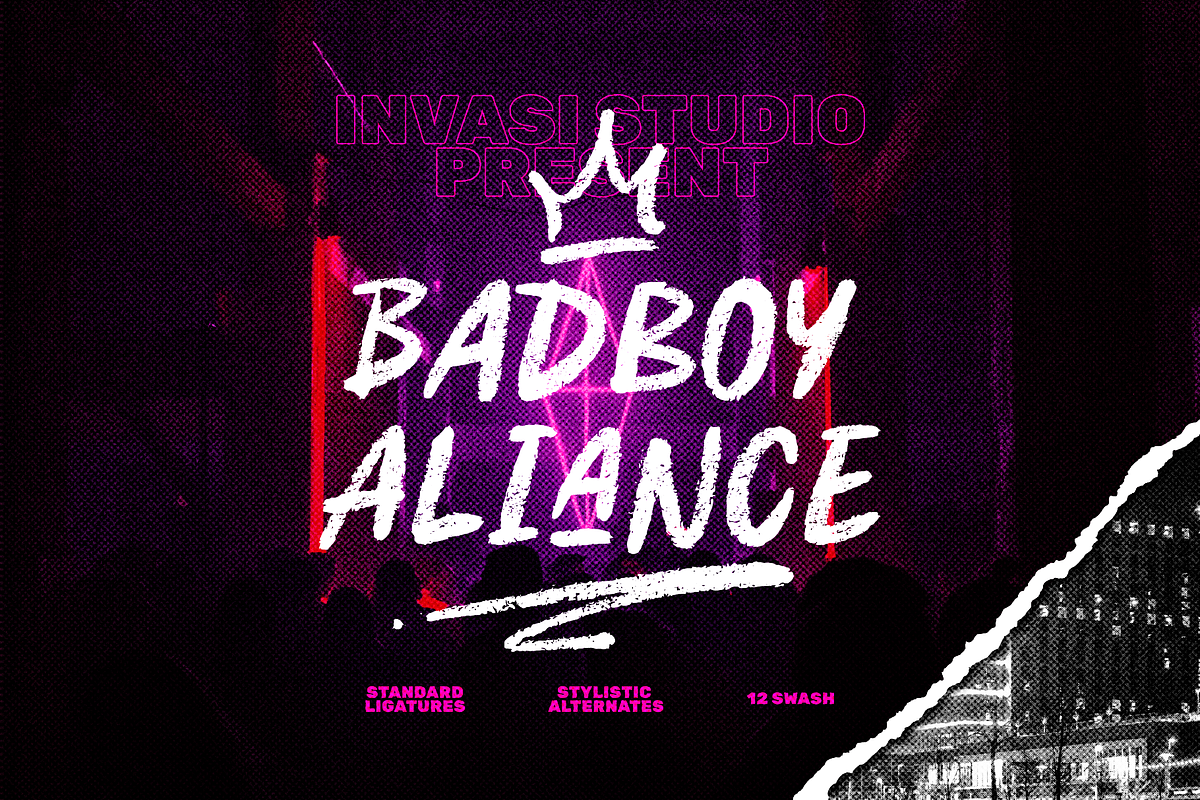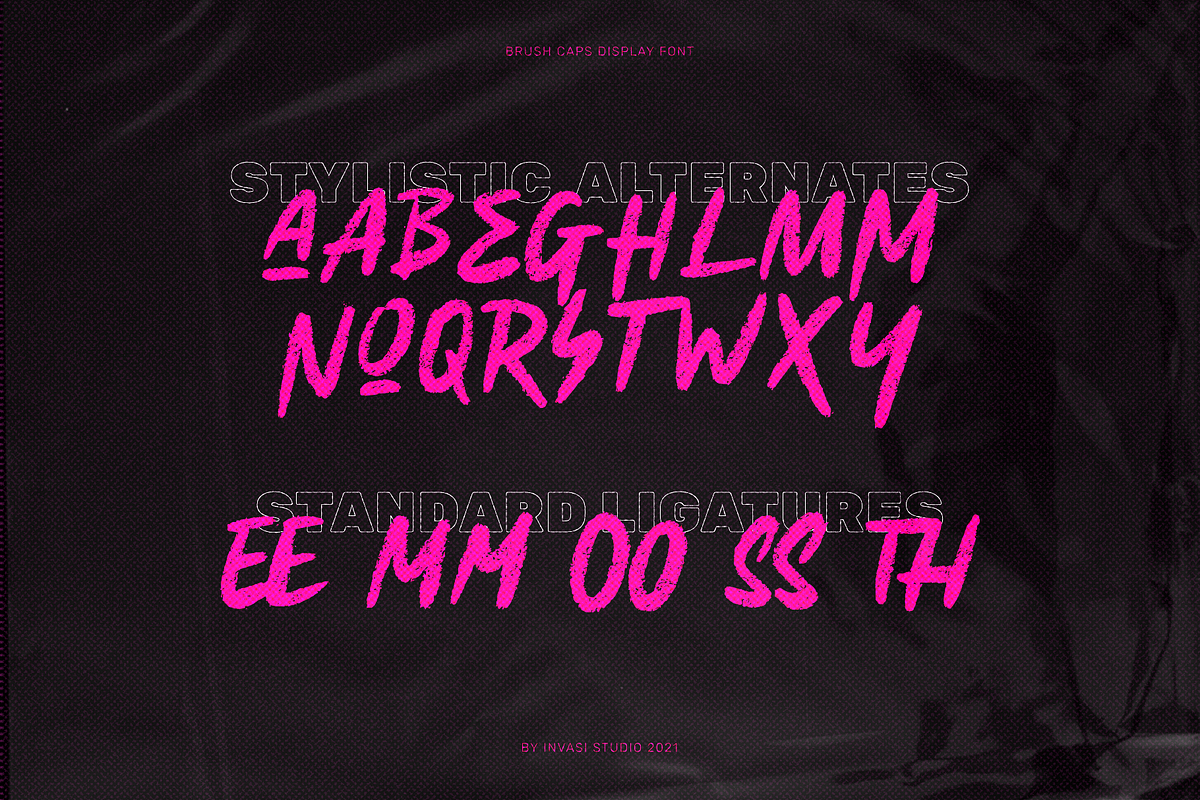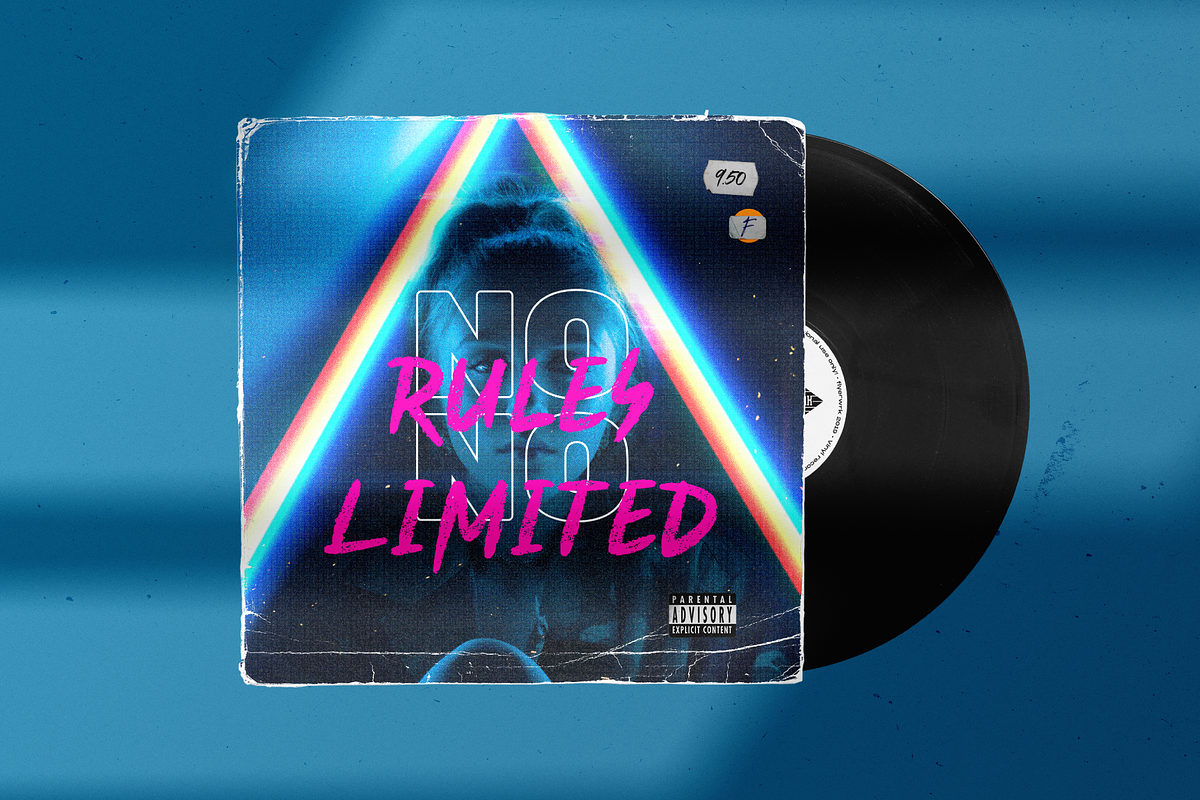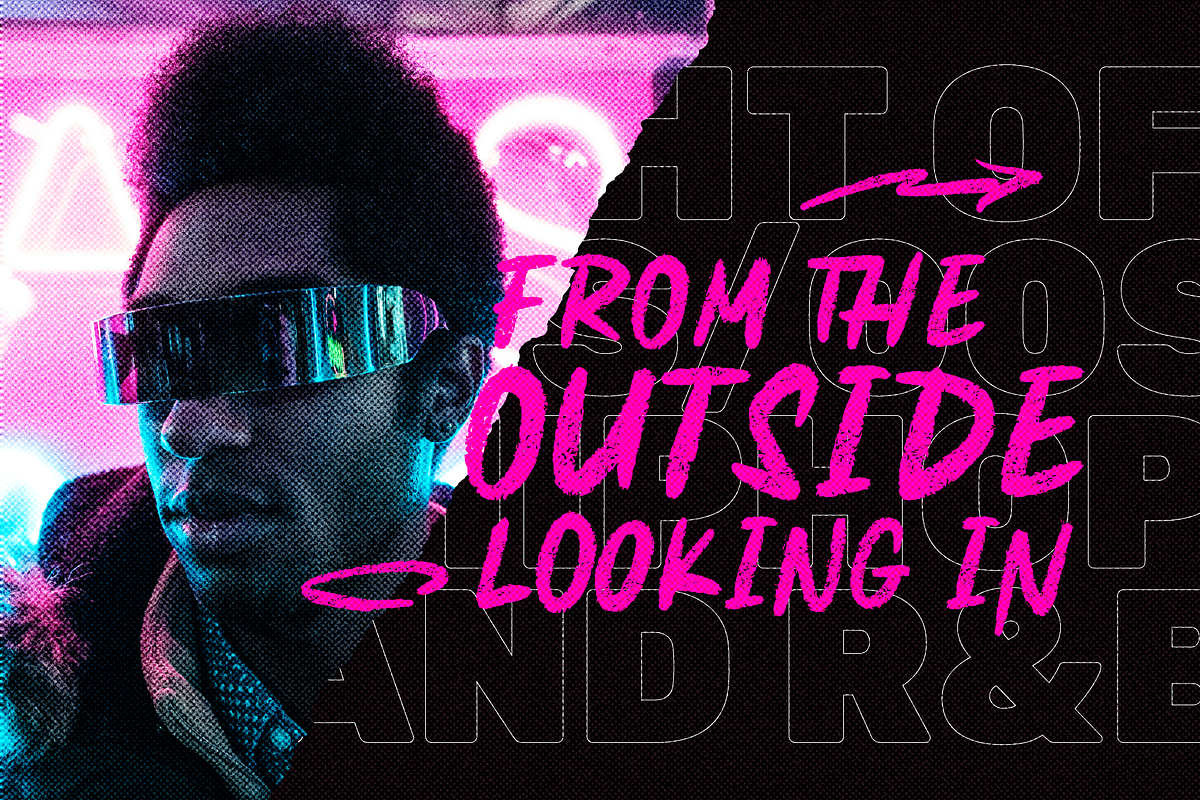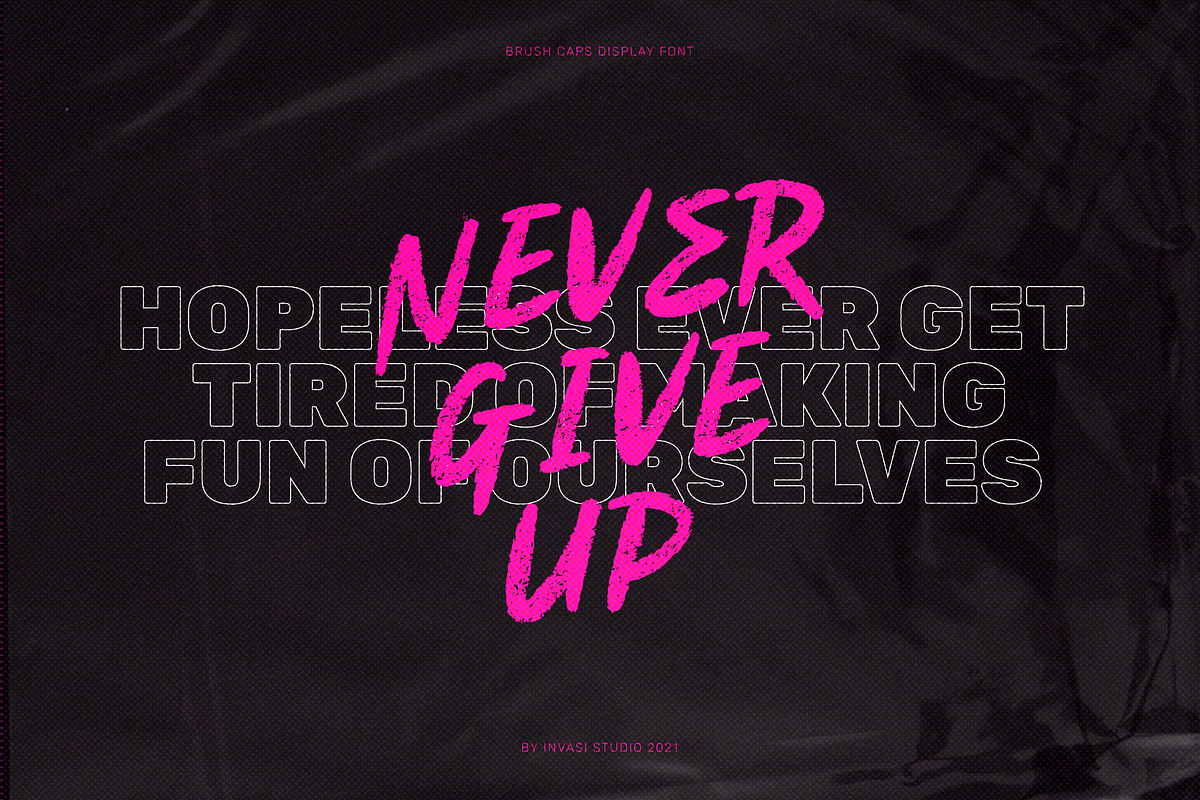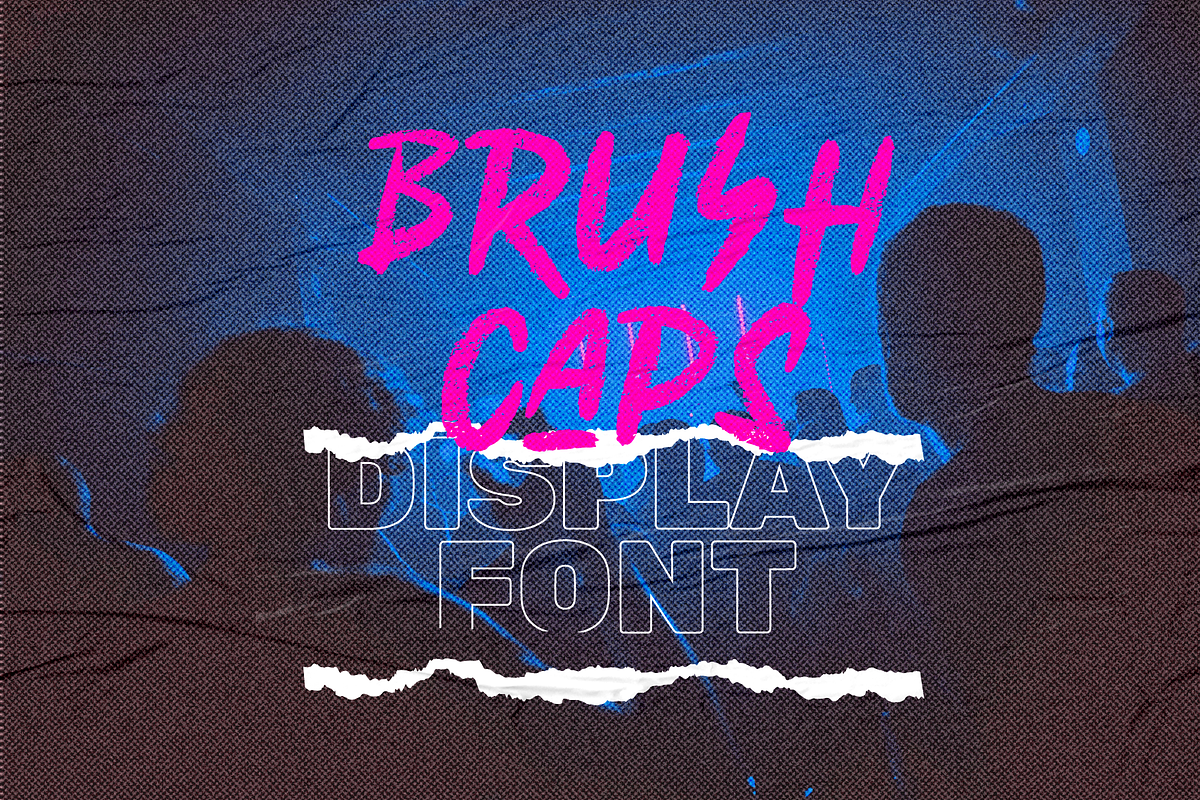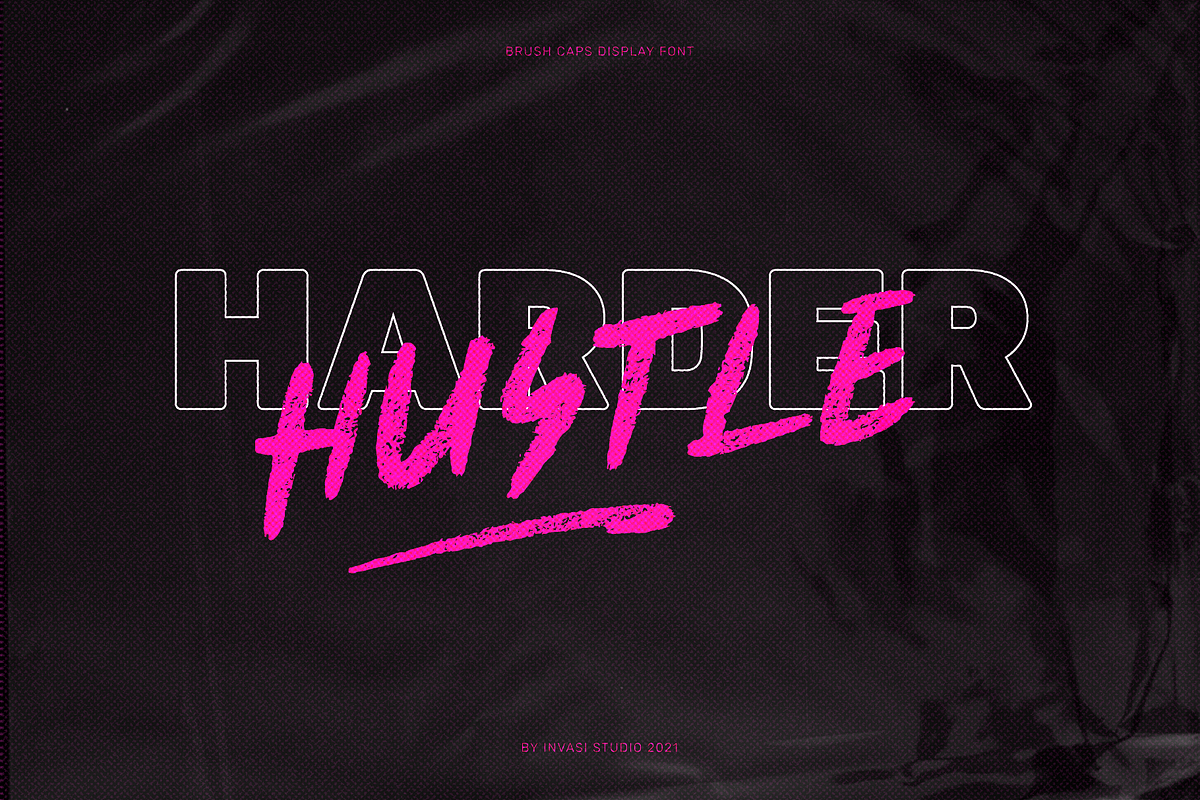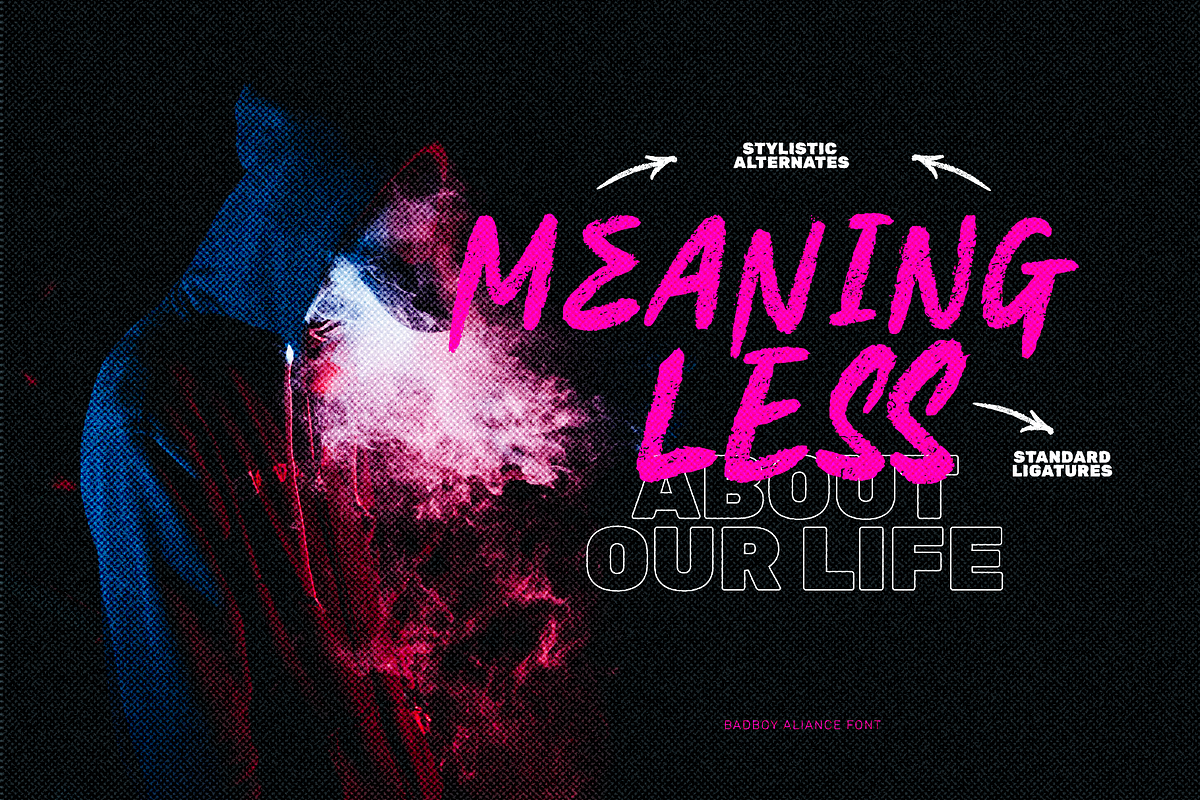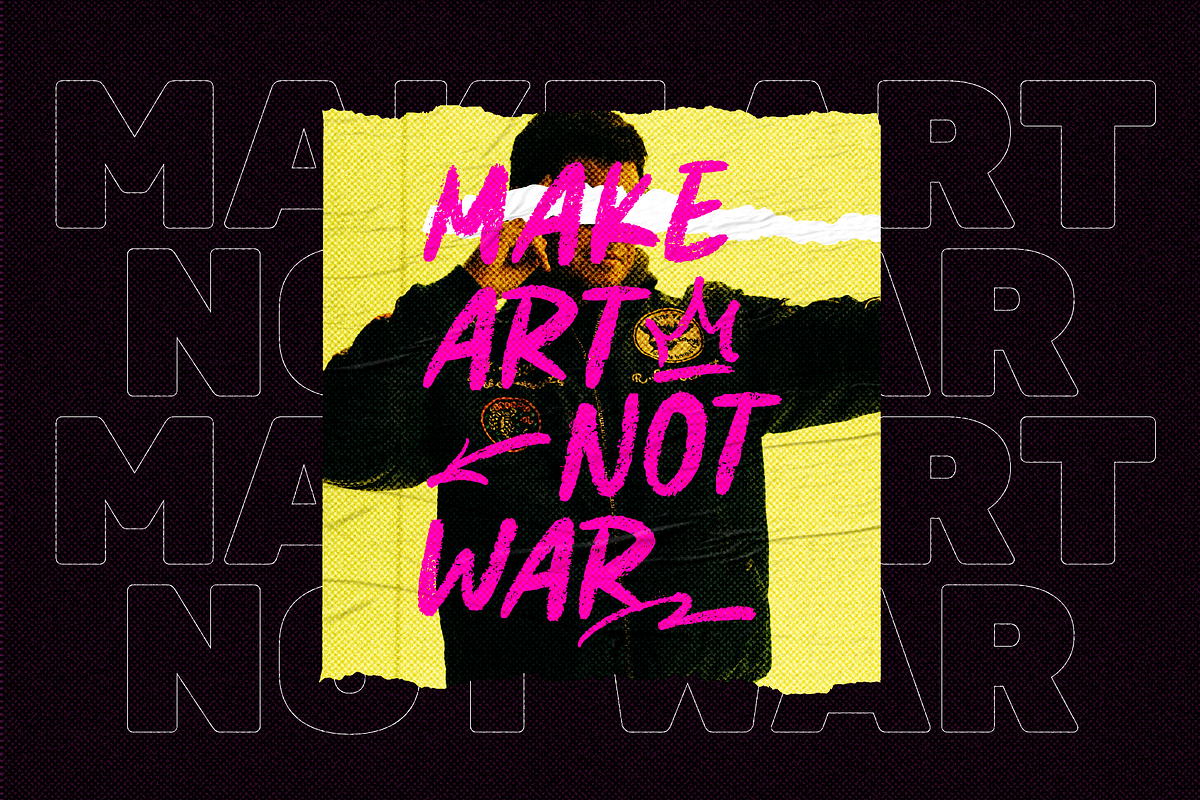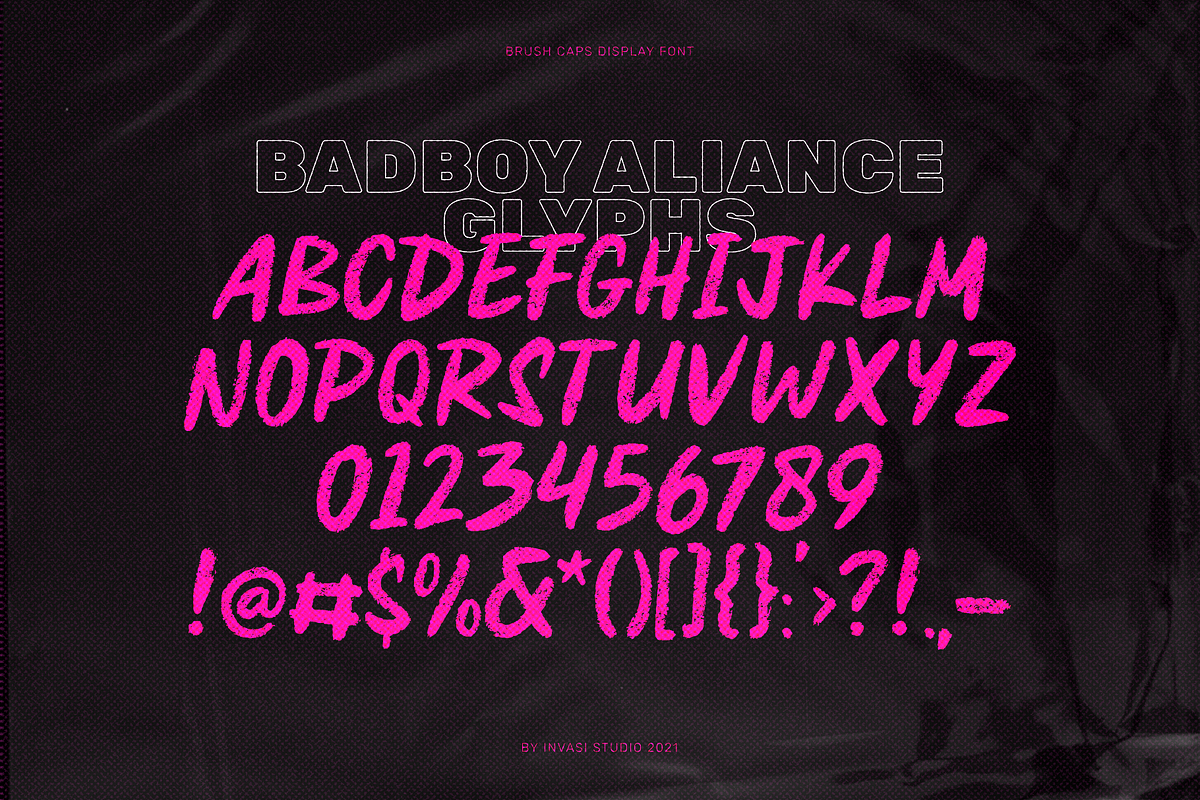
Badboy Aliance | Brush Caps
The Badboy Aliance font is a display font with a brush cap. This font features a swash font which is inspired by the graffiti style era. It can be easily matched to an amazingly broad range of projects, so incorporate it into your creative concepts and see how it elevates them! This font is excellent for headlines, flyers, greeting cards, product packaging, book covers, printed quotes, logotype, and album covers, among many other things.